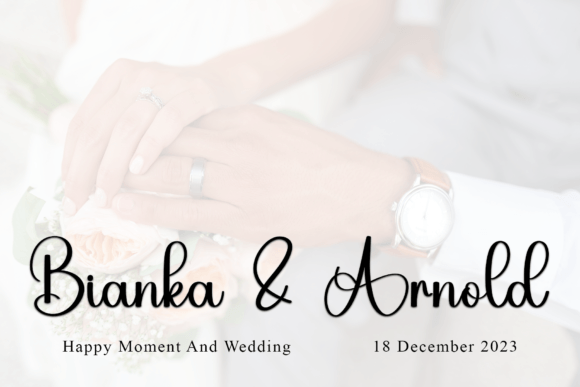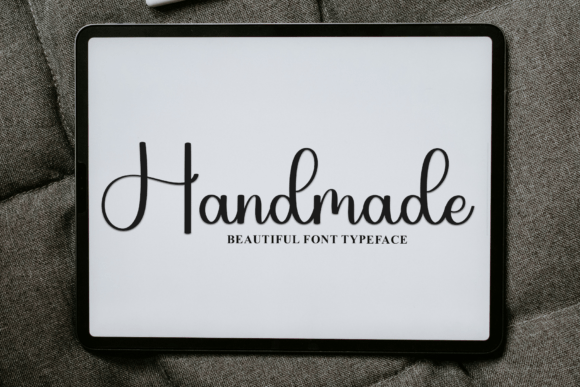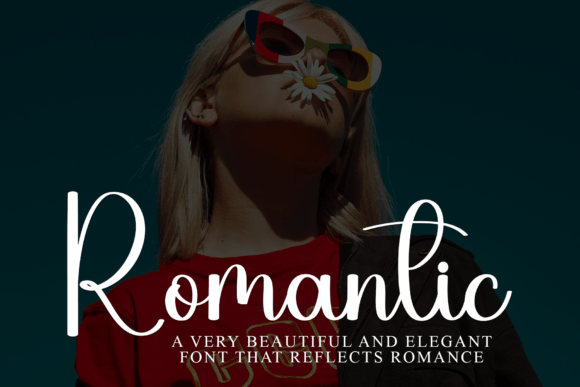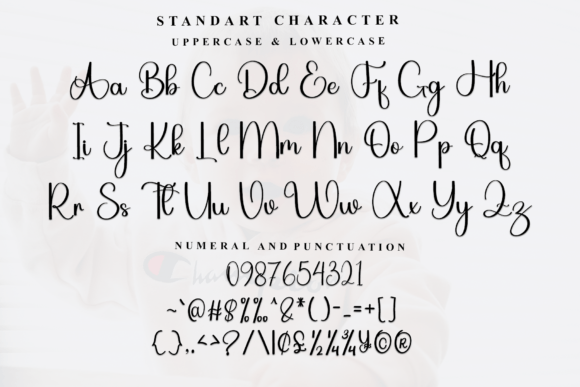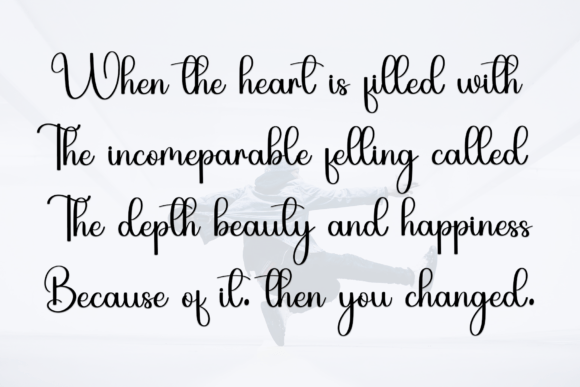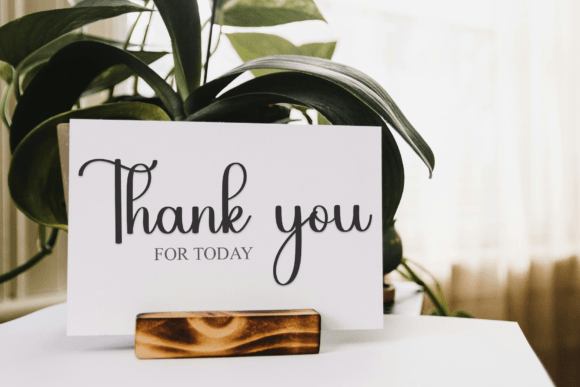
Unleash Your Creativity with Bad Witch Font: A Delicate and Timeless Typeface
Are you a designer, crafter, or DIY enthusiast looking for a font that can elevate your creative projects to the next level? Look no further than the Bad Witch Font, a delicate, elegant, and timeless typeface that is sure to captivate your audience. With its beautiful and well-balanced characters, this font is versatile enough to match a wide pool of designs, making it the perfect addition to your font collection.
The Beauty of Bad Witch Font
Bad Witch Font is a stunning example of typographic excellence, with each character meticulously crafted to exude elegance and sophistication. The font’s delicate lines and curves create a sense of refinement, making it ideal for projects that require a touch of luxury and poise. Whether you’re designing a wedding invitation, a logo, or a craft project, this font is sure to add a level of sophistication that will leave a lasting impression.
One of the standout features of Bad Witch Font is its incredible versatility. With its well-balanced characters, this font can be paired with a wide range of designs, from modern and bold to vintage and whimsical. Whether you’re creating a DIY project, a branding campaign, or a digital product, this font is sure to complement your design and enhance its overall aesthetic appeal.
Bad Witch Font is PUA (Private Use Area) coded, which means that you can easily access all the amazing glyphs and ligatures without any hassle. This feature makes it easy to get creative with your designs, allowing you to experiment with different characters and combinations to create something truly unique. With PUA coding, you can unlock the full potential of this font and take your designs to new heights.
So, what can you create with Bad Witch Font? The possibilities are endless! Here are a few ideas to get you started:
- Wedding invitations and stationery: Add a touch of elegance to your wedding designs with this beautiful font.
- Logos and branding: Create a lasting impression with a custom logo that showcases your brand’s personality.
- Craft projects: From scrapbooking to card making, this font is perfect for adding a personal touch to your craft projects.
- Digital products: Use Bad Witch Font to create stunning digital products, such as printables, planners, and more.
Why Choose Bad Witch Font?
With so many fonts available, why choose Bad Witch Font? Here are just a few reasons why this font stands out from the rest:
- Unique and elegant design: This font is sure to make your designs stand out from the crowd.
- Versatile and adaptable: Pair it with a wide range of designs to create something truly unique.
- PUA coded for easy access: Unlock the full potential of this font with easy access to glyphs and ligatures.
- Timeless appeal: This font will never go out of style, making it a valuable addition to your font collection.
In conclusion, Bad Witch Font is a delicate, elegant, and timeless typeface that is sure to elevate your creative projects to new heights. With its beautiful and well-balanced characters, versatility, and PUA coding, this font is a must-have for designers, crafters, and DIY enthusiasts. Whether you’re looking to add a touch of luxury to your designs or create something truly unique, Bad Witch Font is the perfect choice. So why wait? Add it to your font collection today and unleash your creativity!